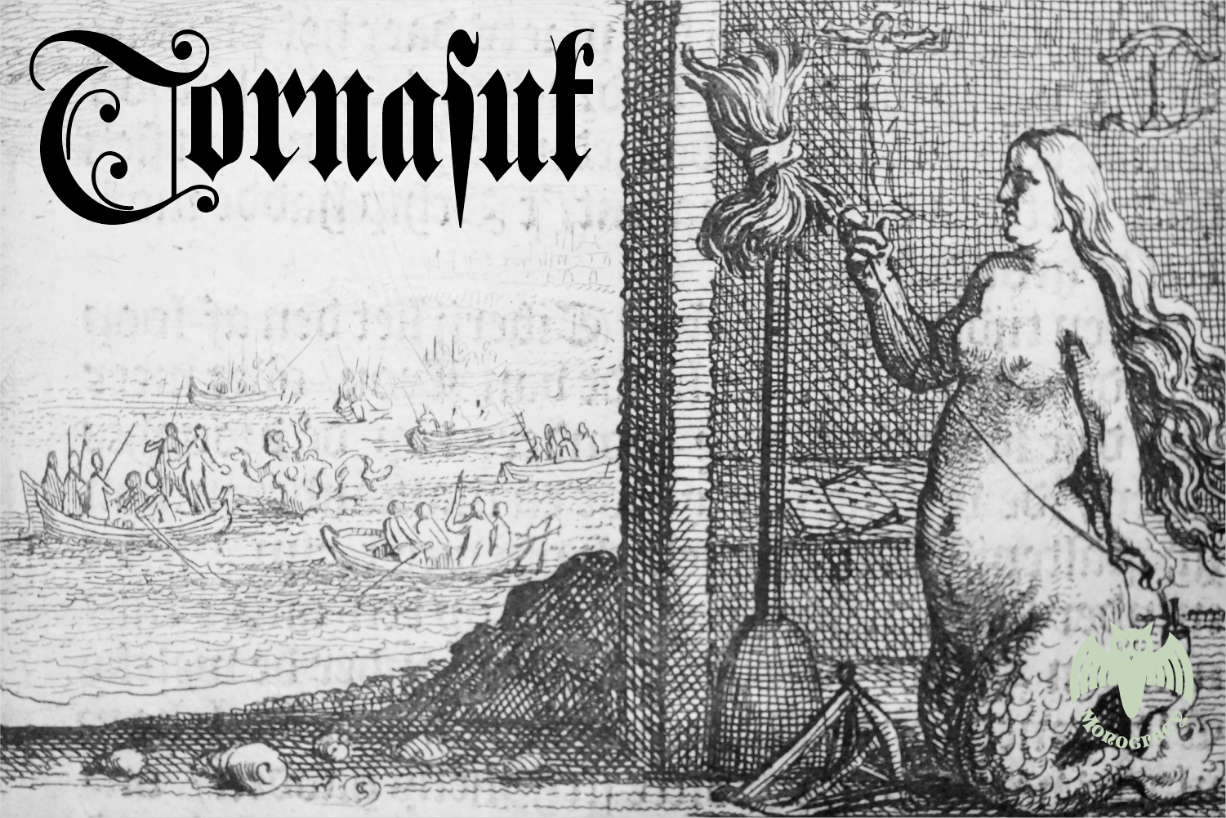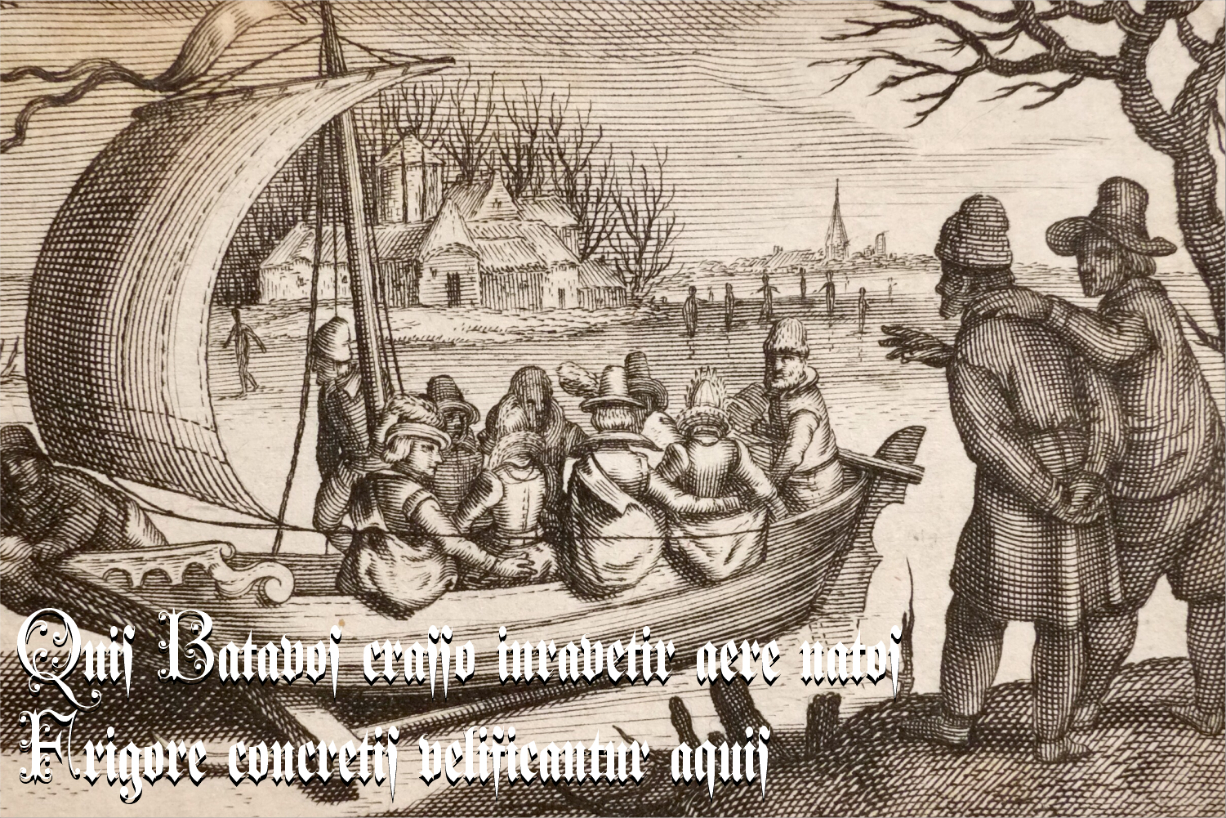
About Tornasuk Font
Tornasuk is a mixed styled blackletter font, with capital letters in Lombardic medieval style. It is suitable for any bold branding, product packaging, invitation, quote, t-shirt, label, poster, logo that you wish to develop.